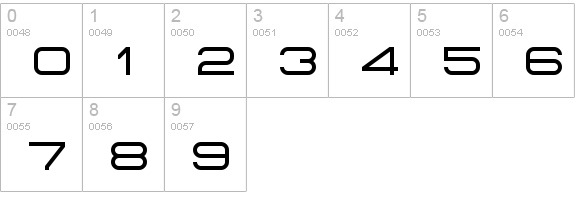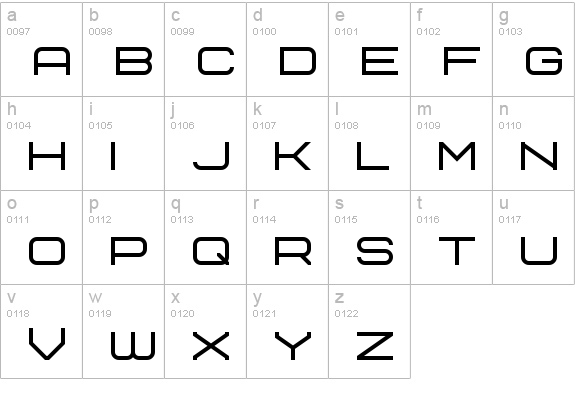
Genx BiKubic Font Details
Genx BiKubic font is a modern and stylish typeface that exudes elegance and sophistication. With its clean lines and sleek design, Genx BiKubic is perfect for a wide range of projects, from branding to editorial design. This font is versatile and can be used in both print and digital designs, making it a valuable addition to any designer's toolkit. What sets Genx BiKubic font apart is its unique combination of sharp edges and smooth curves, creating a visually striking look that is sure to catch the eye. Whether you are creating a logo, website, or poster, Genx BiKubic font will make your design stand out from the crowd. Best of all, Genx BiKubic font is available for free download at FontsMarket.com. This means that you can easily access this stunning font and start using it in your projects right away. Don't miss out on the opportunity to elevate your designs with Genx BiKubic font – download it today and see the difference it can make!